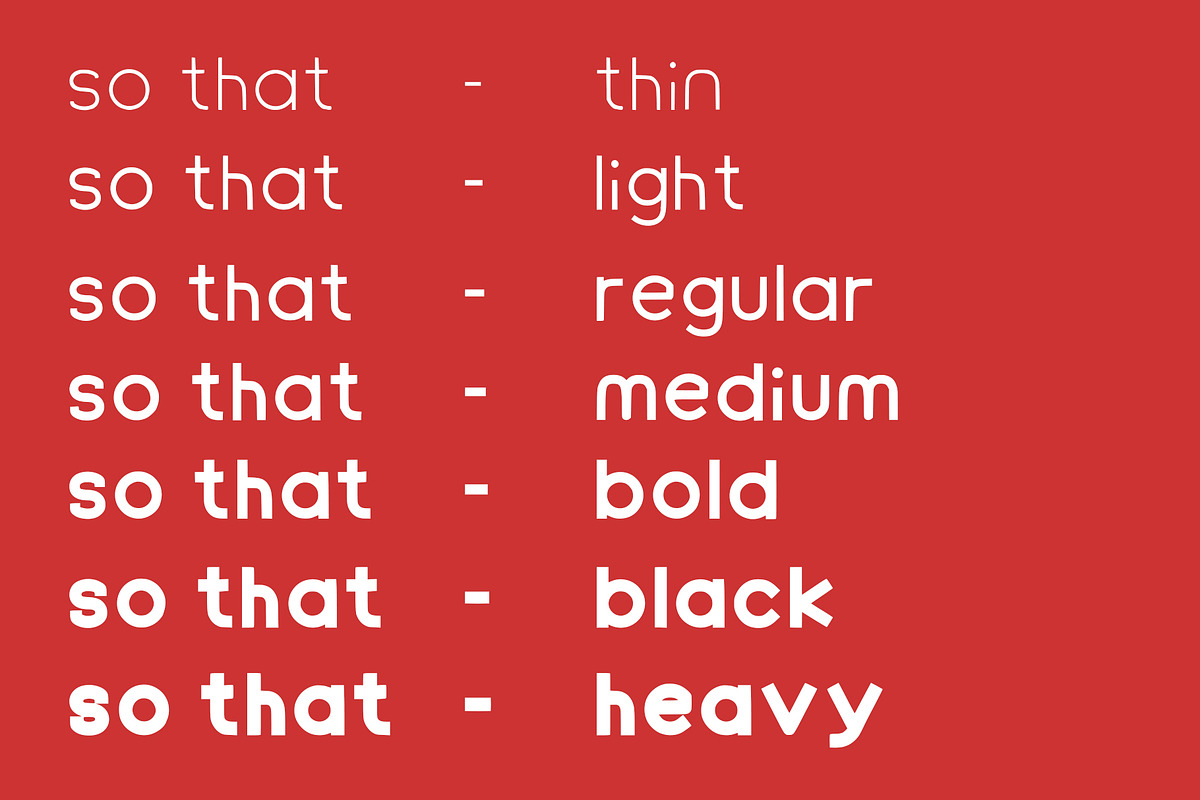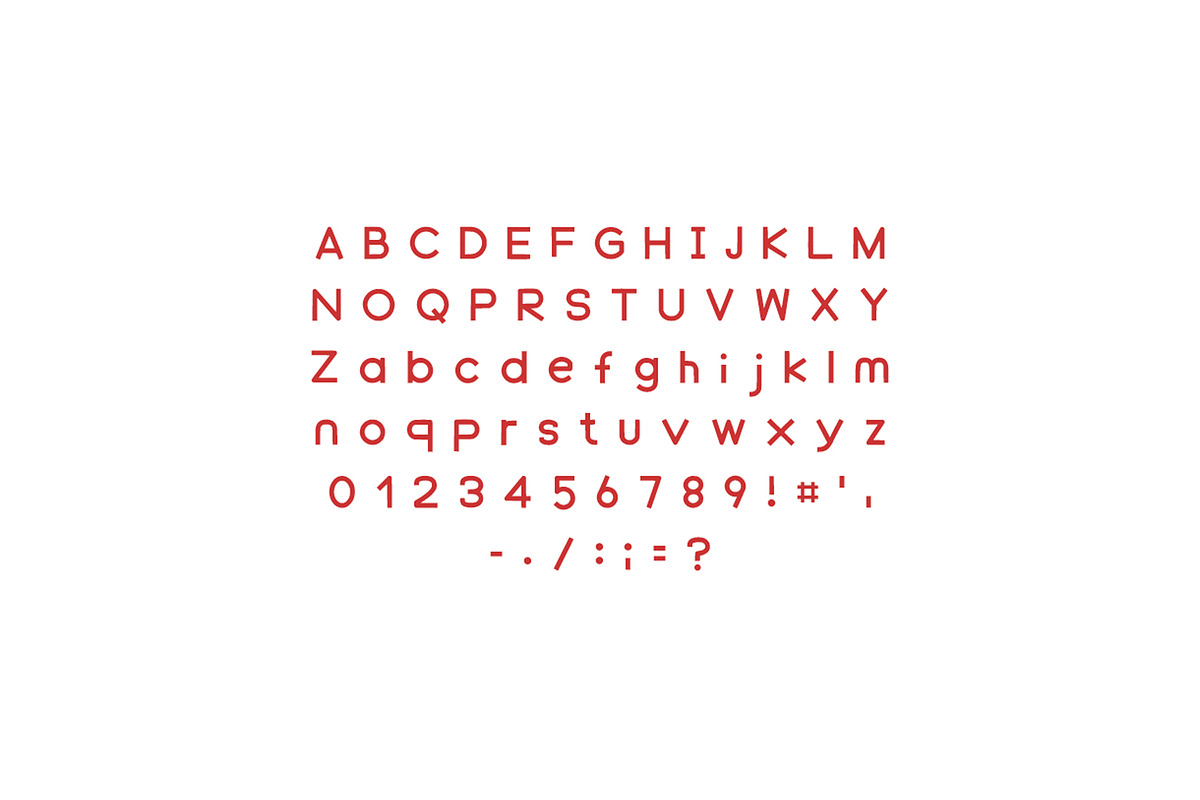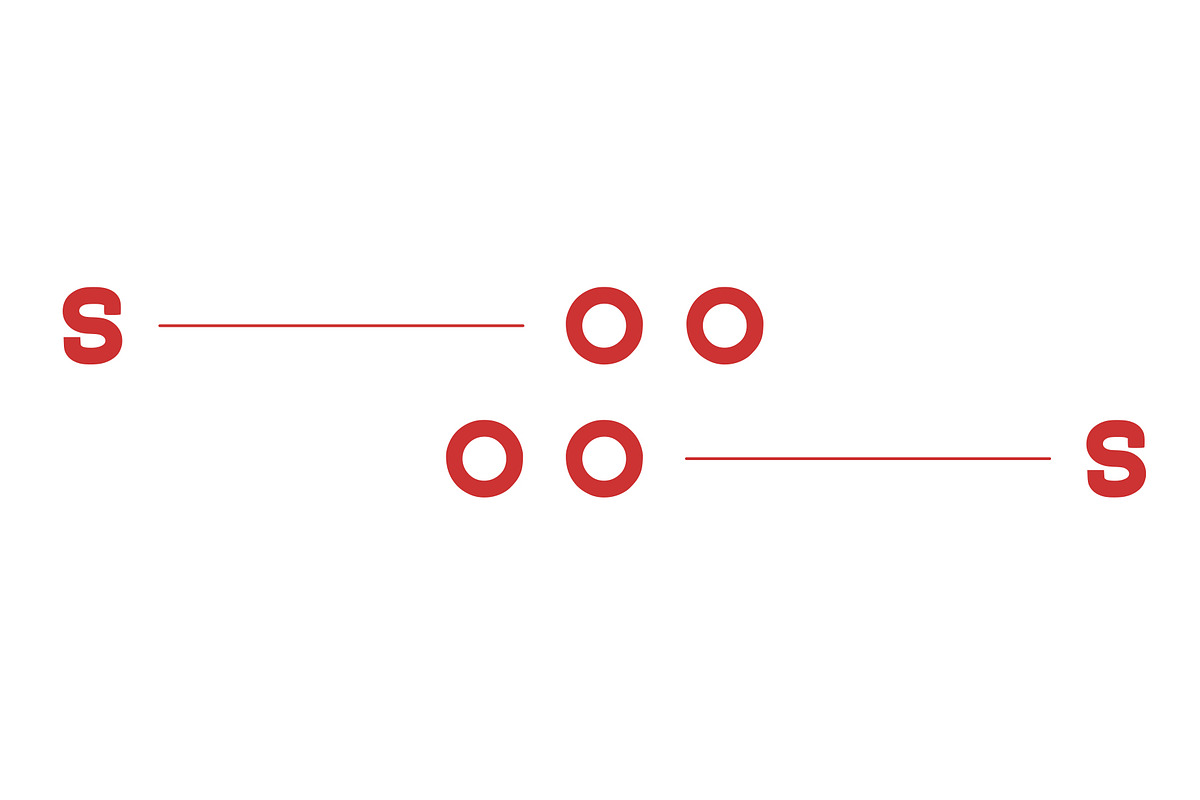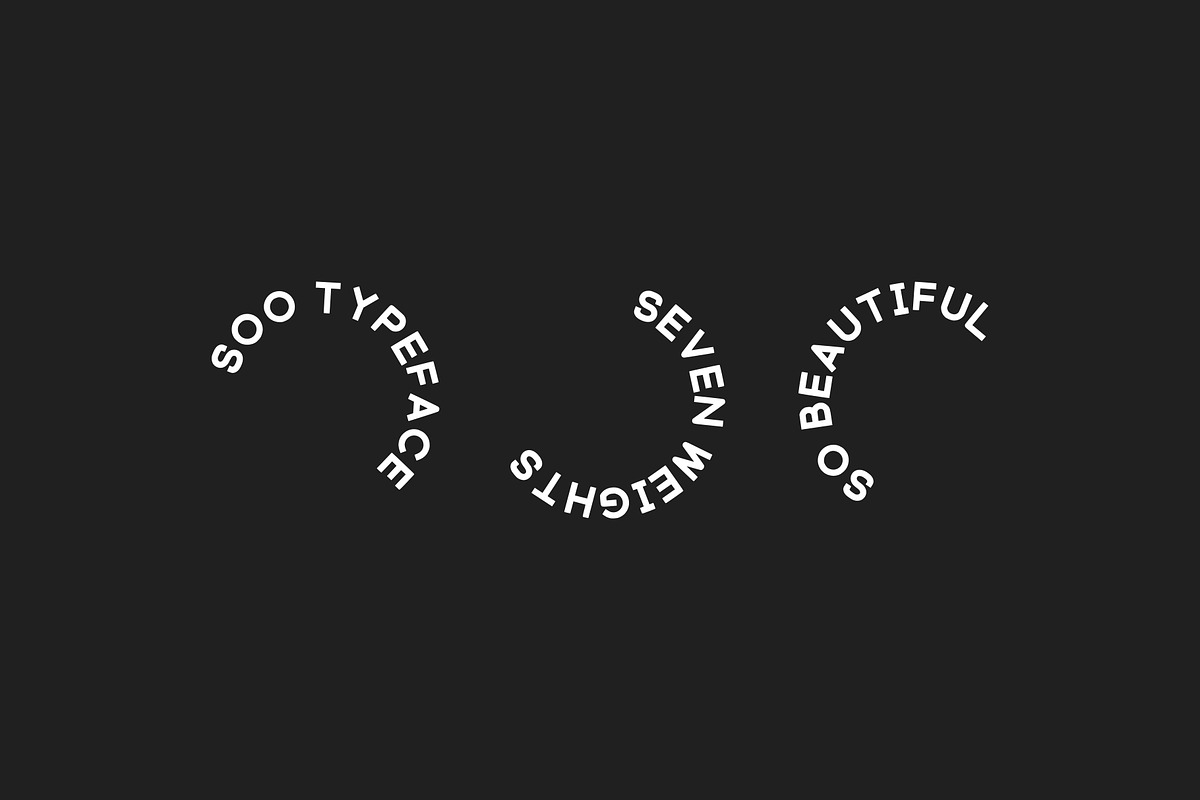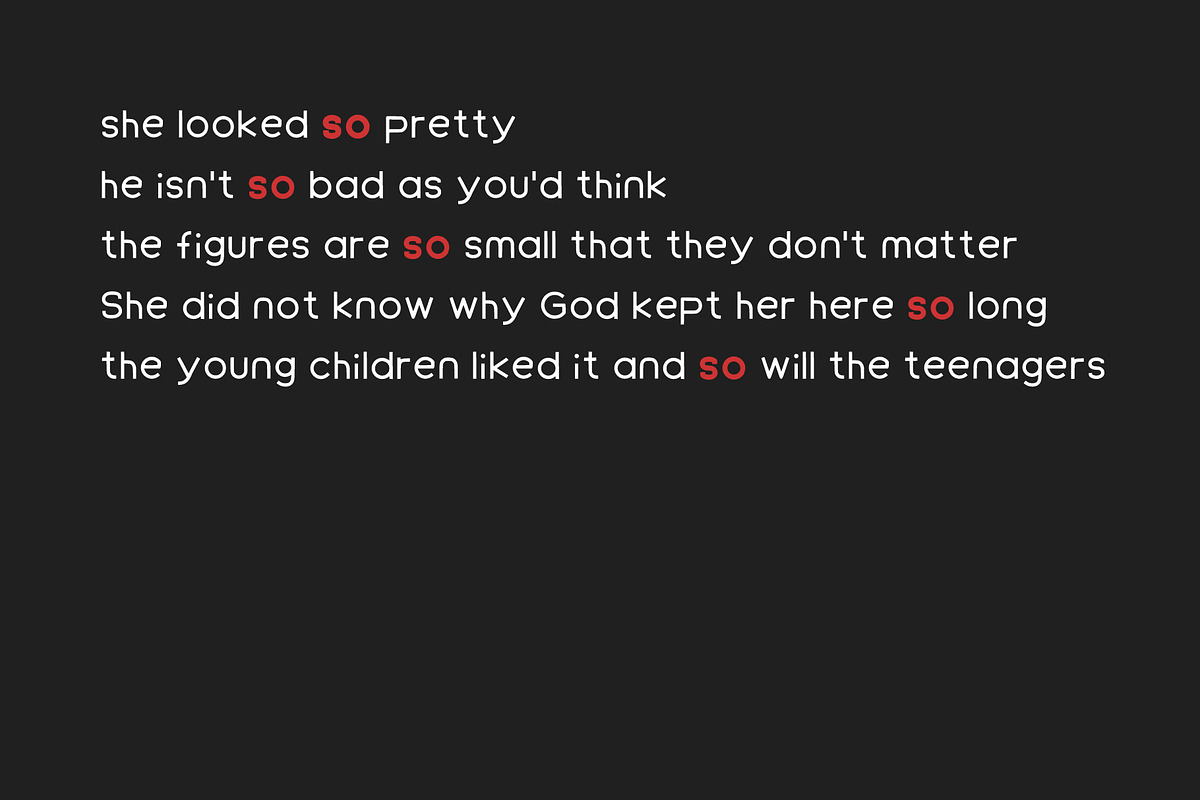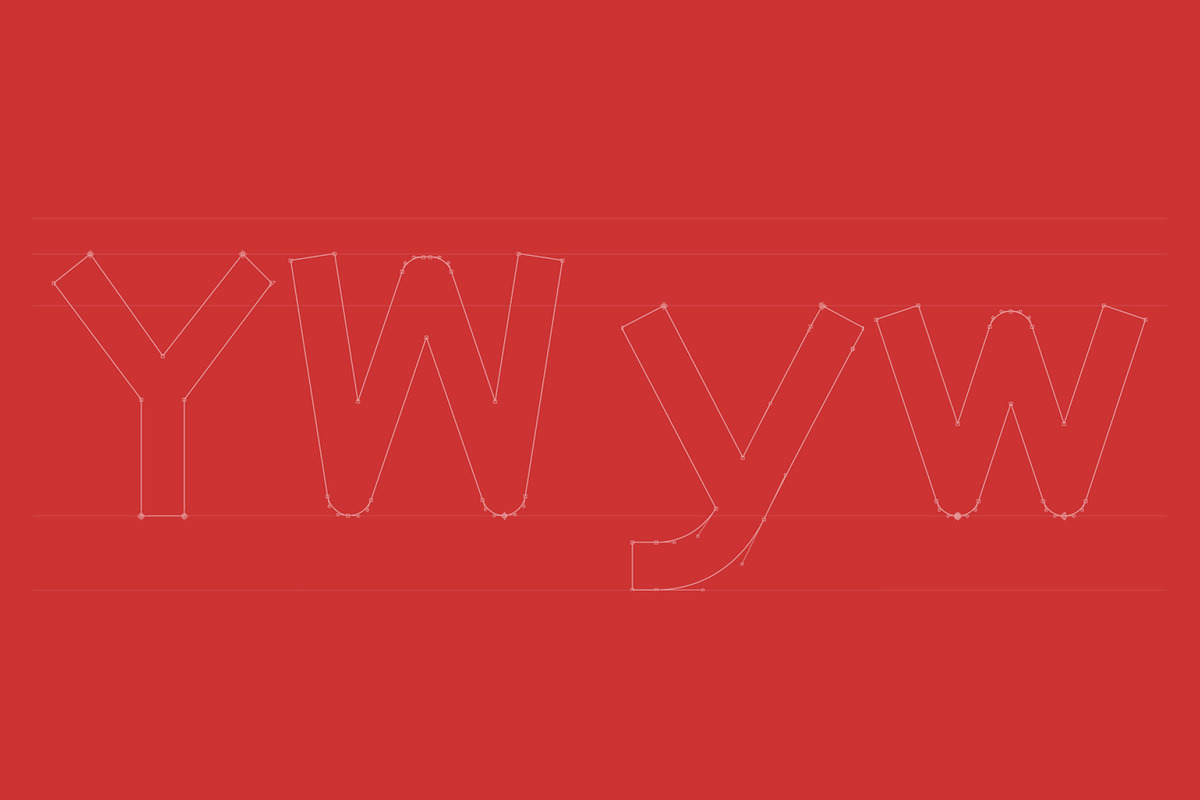
Soo Typeface
SOO is definitly the new sans serif family you were waiting for. With its friendly & sharpened shapes and its big contrasts from hairline to black, this contemporary font family will be perfect for any kind of uses, from print to screen, identities to magazines, small text to headlines. While the extremes are definitely intended to large sizes usage, the intermediate weights will be well suited to text setting at smaller sizes. Available in 7 weights.